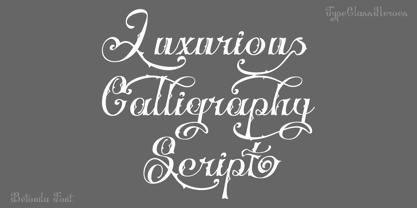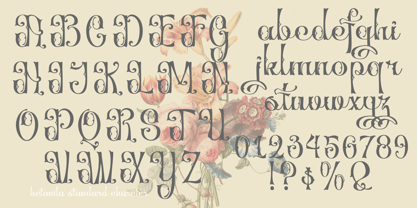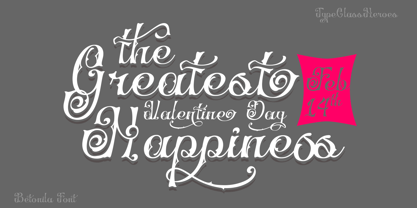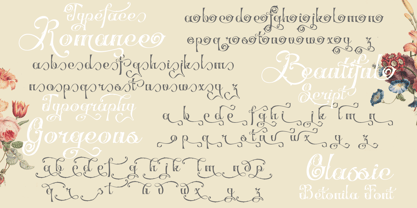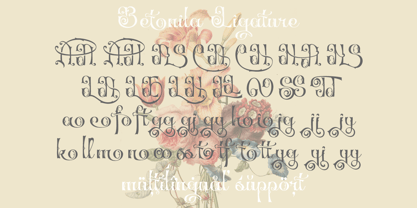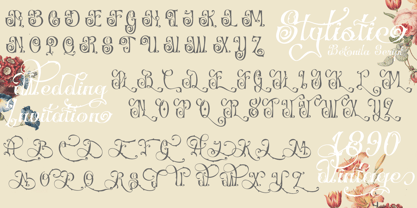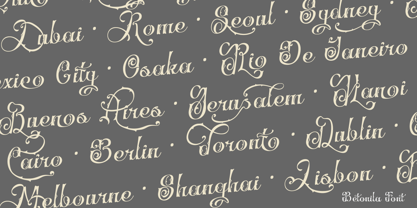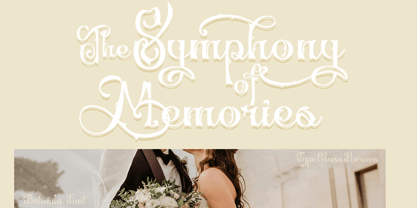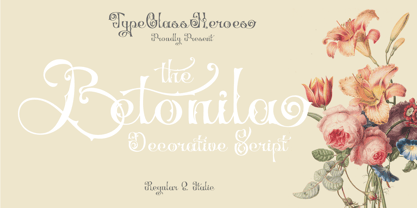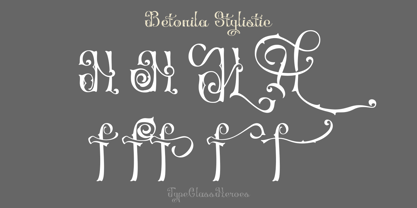
Betonila
by TypeClassHeroes
The Betonila Font Family was designed by Suandana ipandemade and published by TypeClassHeroes. Betonila contains 2 styles and family package options. More about this family
Betonila is a decorative typeface has a strong Victorian vibe, so the font is really a match for your project with a vintage theme, but with a modern twist much simpler. This font is perfectly made to be a logo, and the other various formal forms such as invitations, labels, logos, magazines, books cover, greeting cards, packaging, fashion, make up, novels, labels and many more.
Designers: Suandana ipandemade
Foundry: TypeClassHeroes